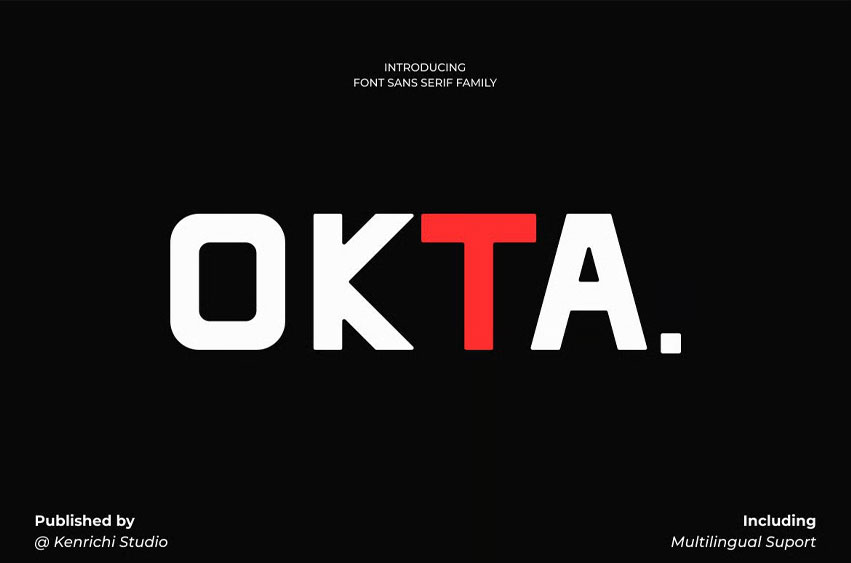
Okta- Bold Font is a modern and authentic font. Perfect for both professional and branding needs of a product. This font is suitable for any branding project, like quotes, logo, blog header, poster, branding, letter, invitation, and stationery. etc.
Designed as a versatile and flexible tool that can be used on a range of projects and media. outstanding in a wide range of contexts.